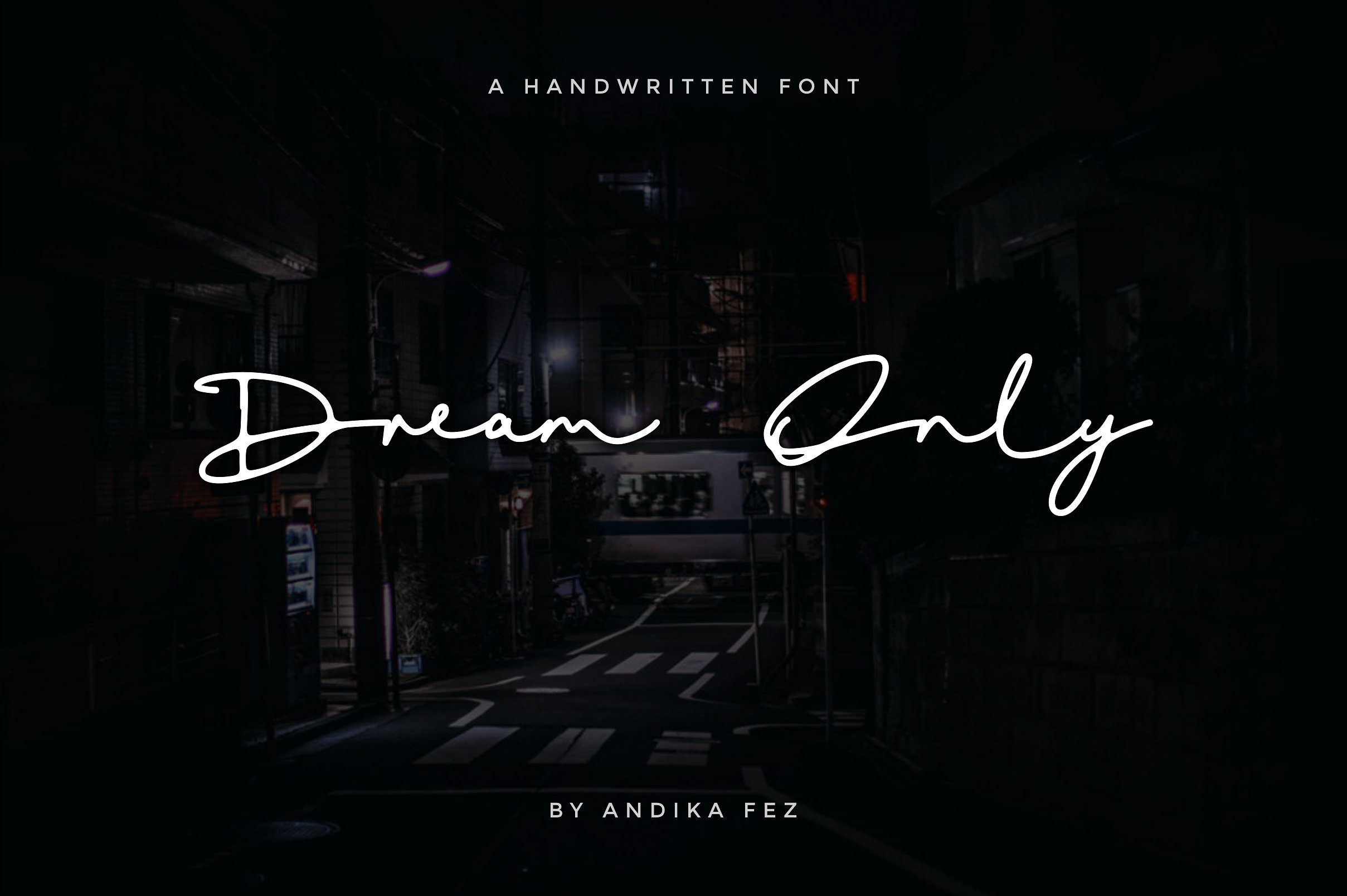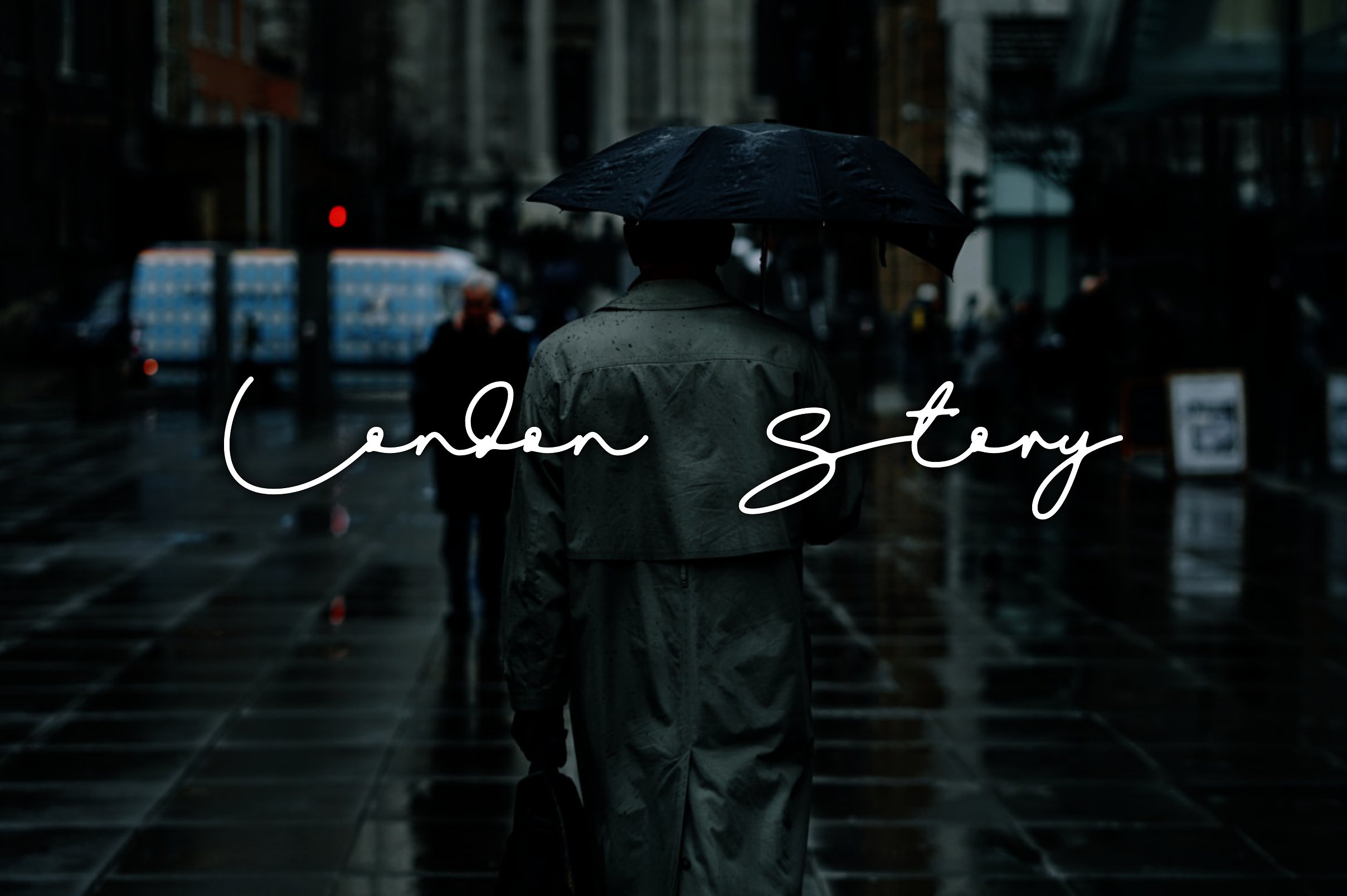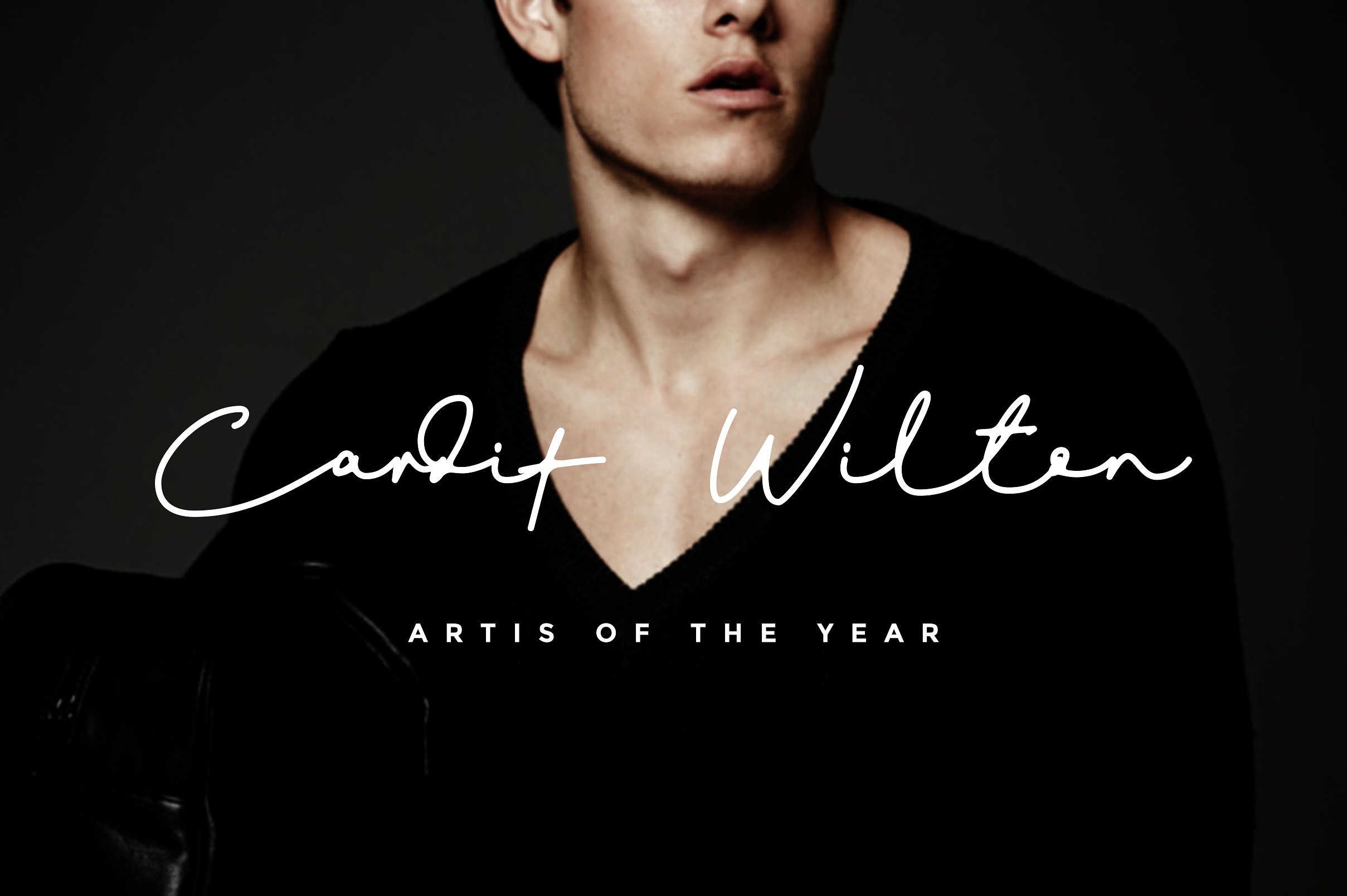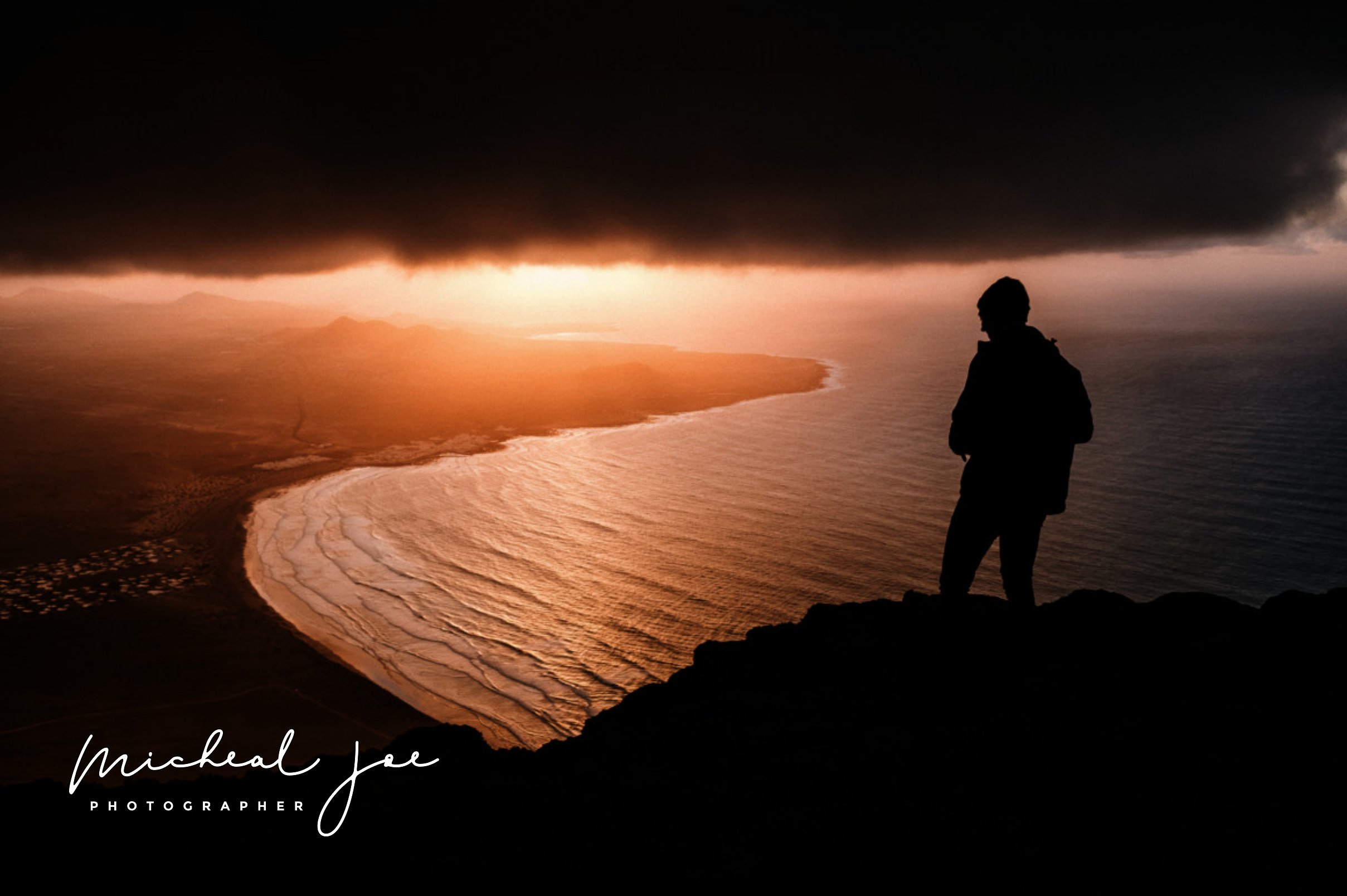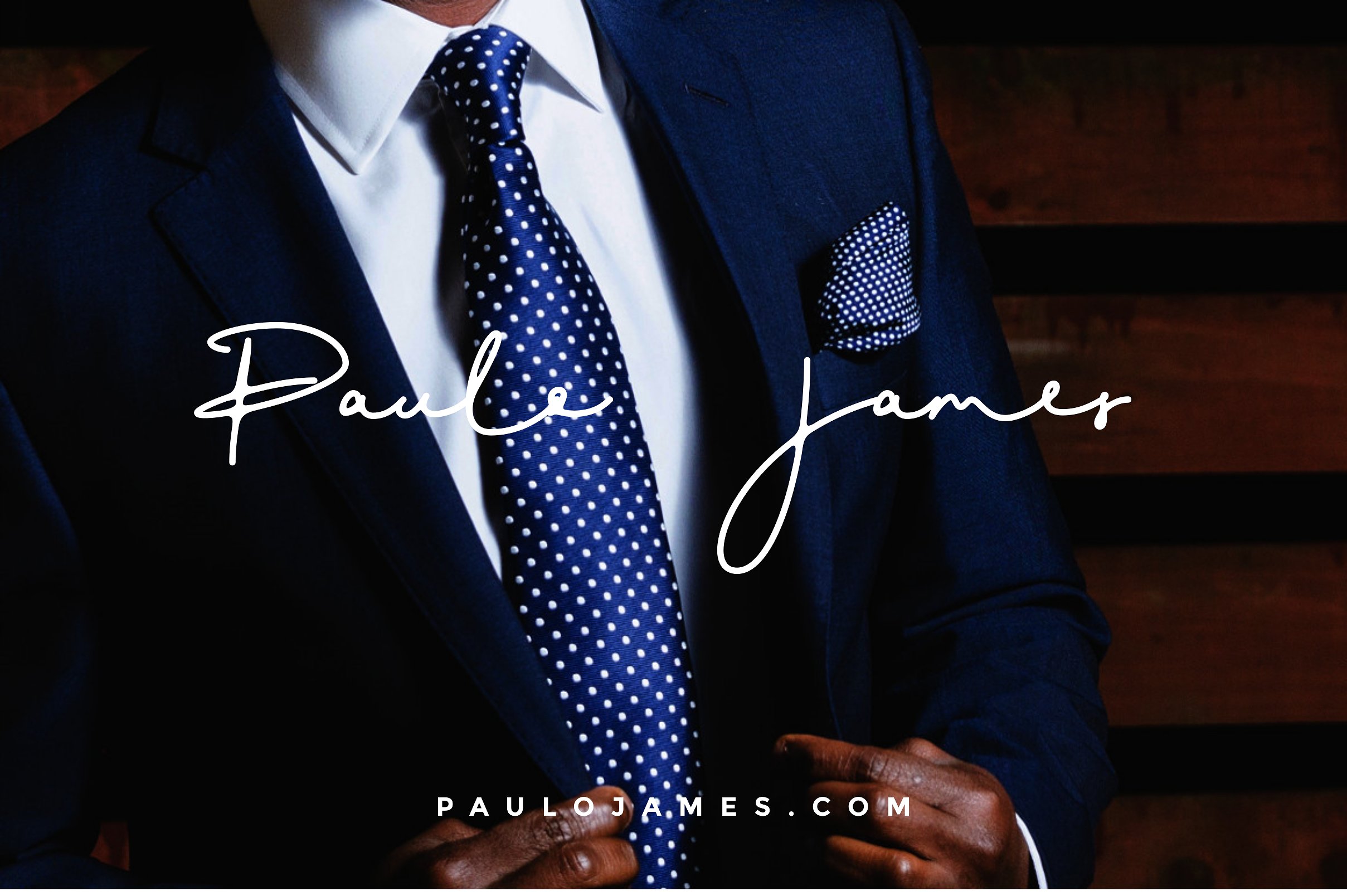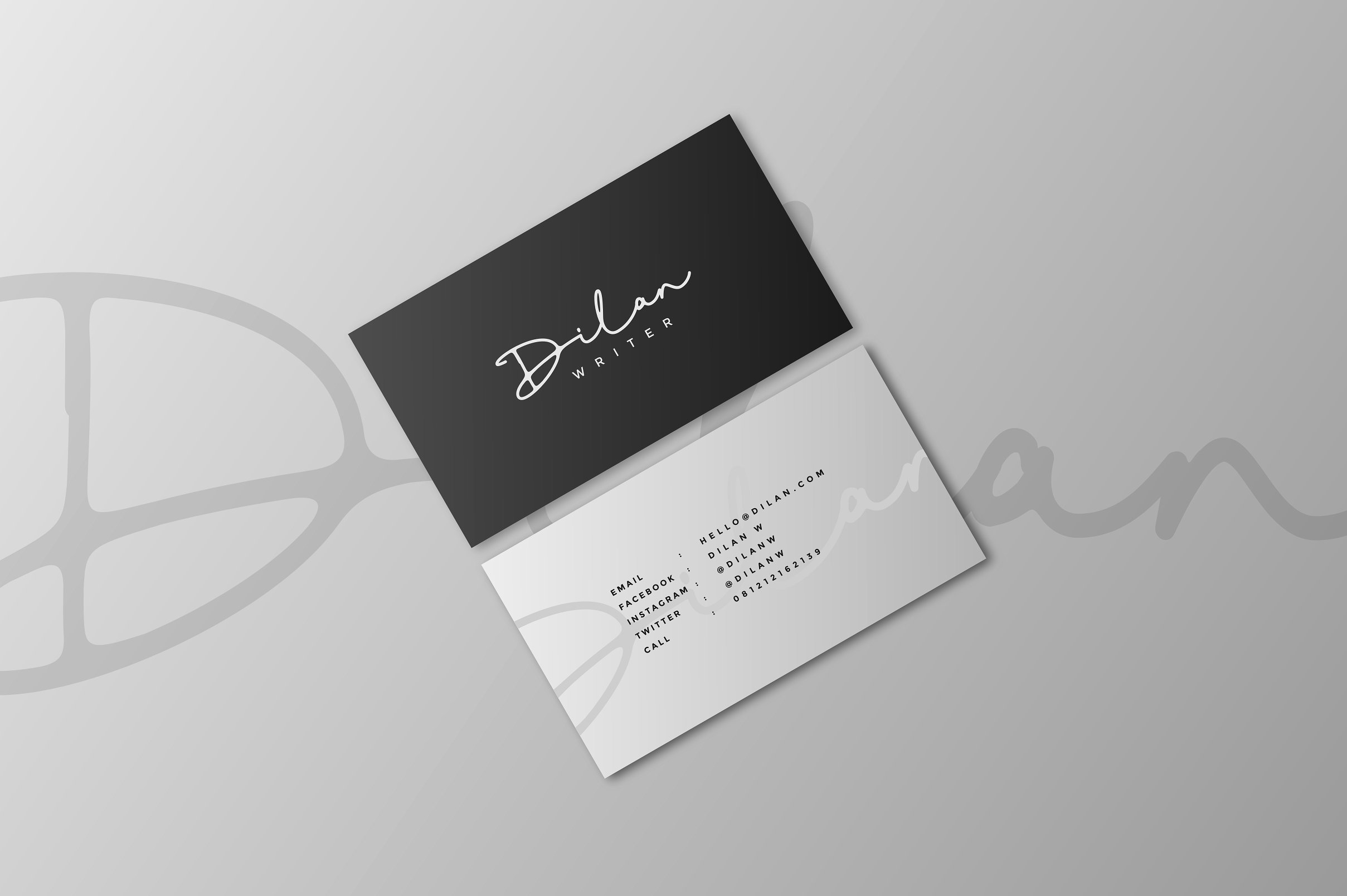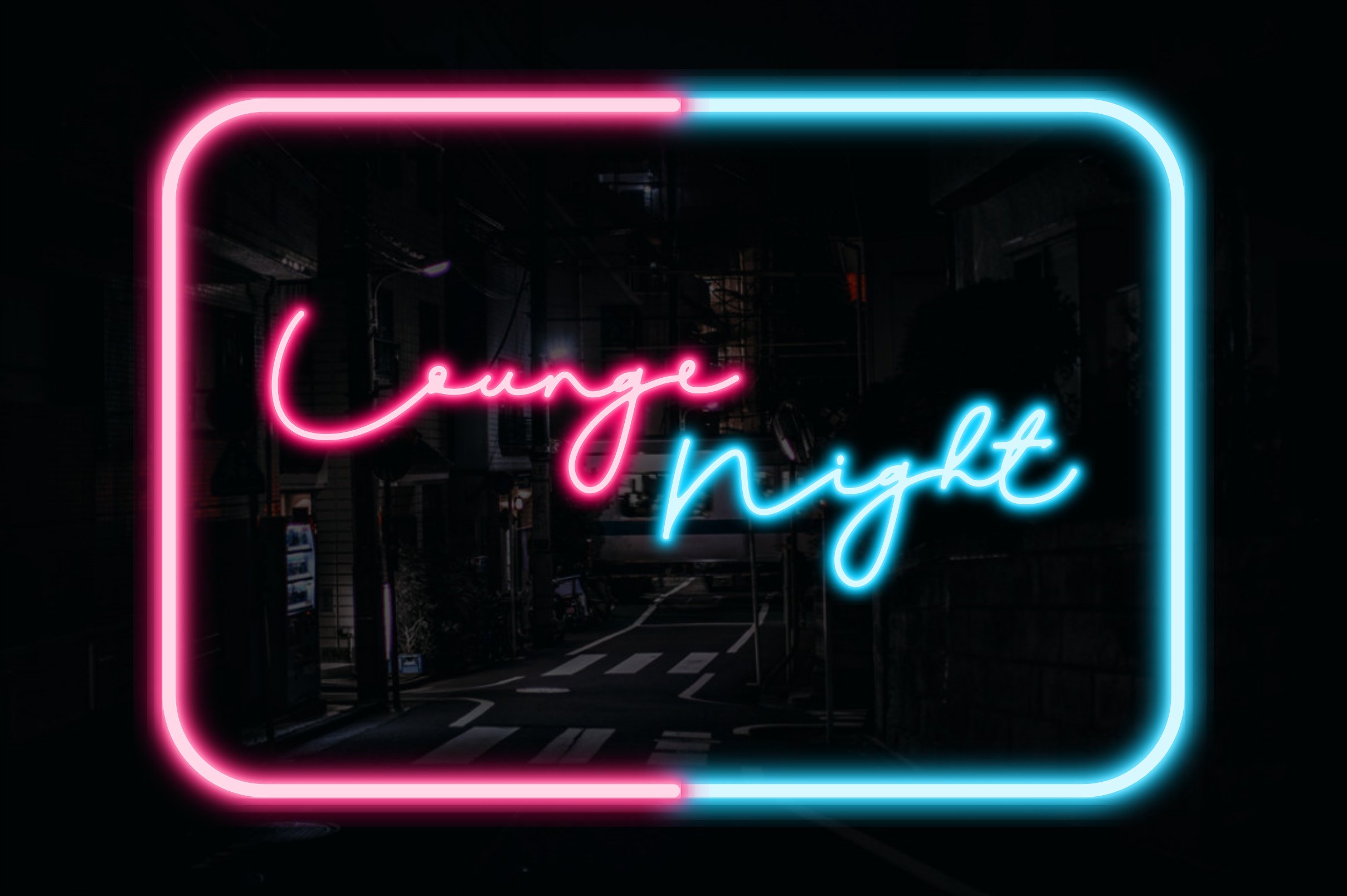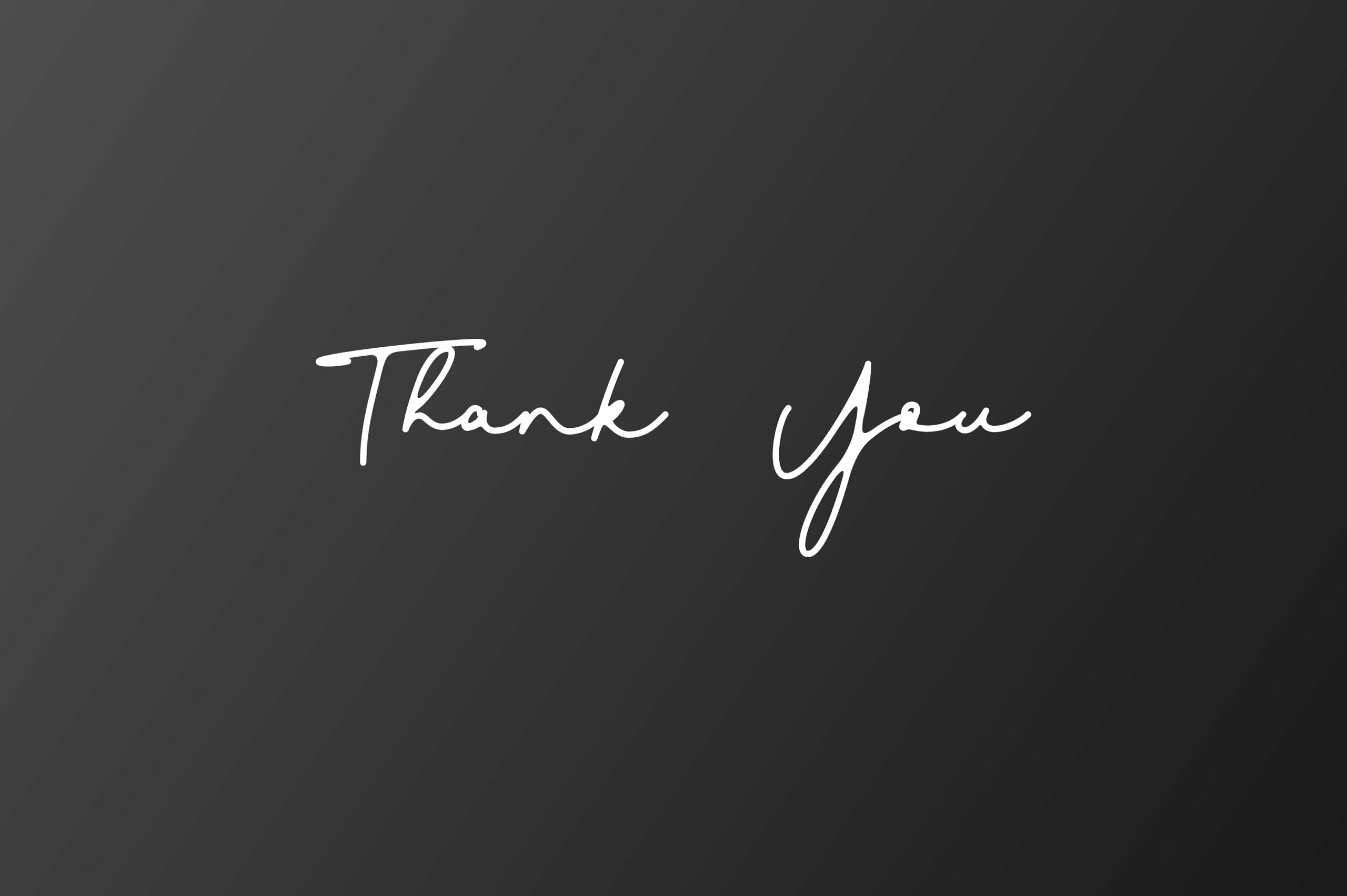
Dream Only Font
About Dream Only Font
Dream Only is a handwritten script font that allows for creativity and signature style! This casual script is ideal for logotype and watermarks, and works stunningly in a wide range of project types.